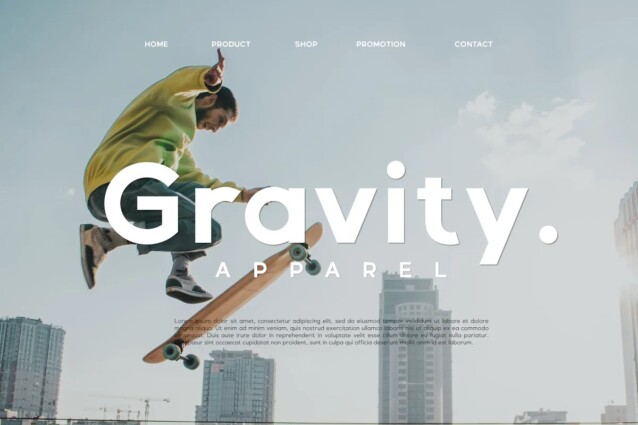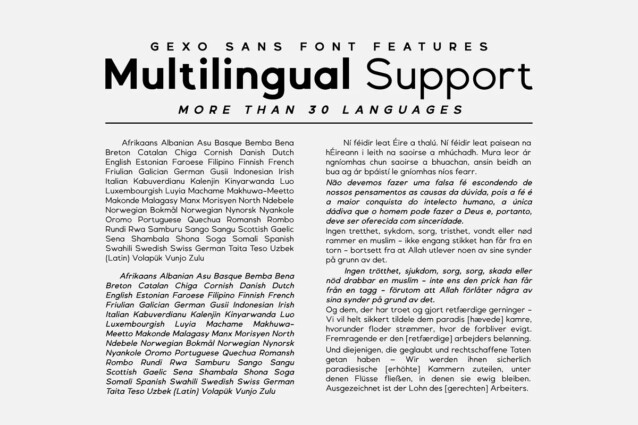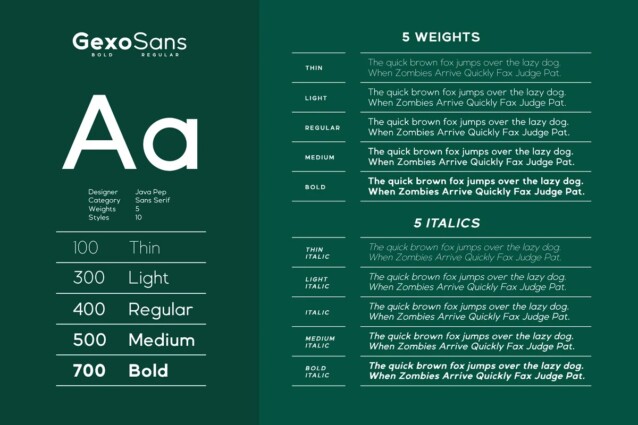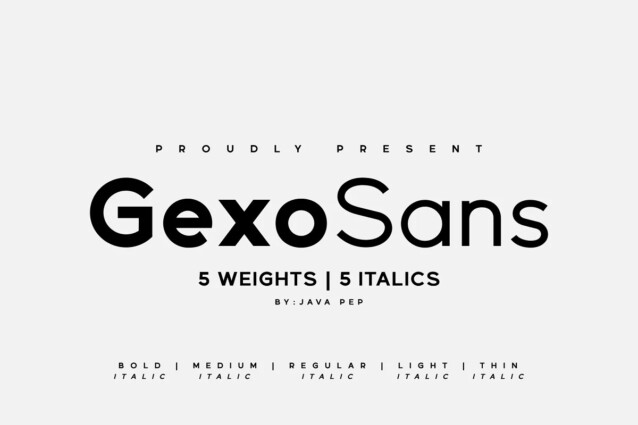
Gexo Sans Font
Gexo Sans Font is a typeface without serifs that is suitable for modern, minimalist and professional designs. Gexo Sans designed for elegant and outstanding purposes for your project. This font is perfect for logotype, advertising poster, title, headline, publishing, text font, and etc. Gexo Sans is supporting multilingual more than 30 languages.